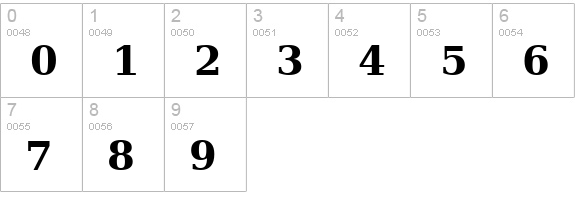
ae_Rasheeq Bold Font Details
ae_Rasheeq Bold is a strong, high-contrast variant in the ae_Rasheeq typeface family \xE2\x80\x94 well suited to headlines, attention-grabbing titles, and strong calls-to-action.
The ae_Rasheeq Bold font is a stunning and versatile typeface that exudes elegance and sophistication. Its bold and eye-catching design makes it perfect for headlines, titles, and other prominent text in various design projects. With its unique and stylish appearance, ae_Rasheeq Bold adds a touch of modernity and flair to any piece of work. The best part about ae_Rasheeq Bold font is that it is available for free download at FontsMarket.com. This means that you can easily access and use this beautiful font in your projects without any cost. Whether you are a designer, artist, or simply someone looking to enhance your text with a touch of bold style, ae_Rasheeq Bold font is the perfect choice for you. Don't miss out on the opportunity to download ae_Rasheeq Bold font for free today and add a touch of sophistication to your designs!